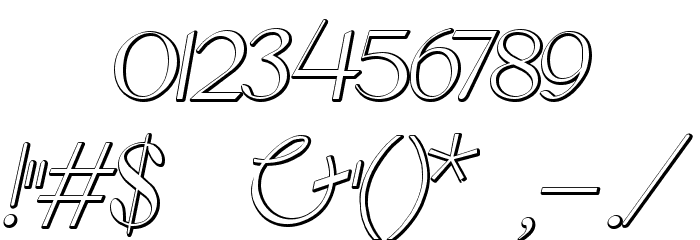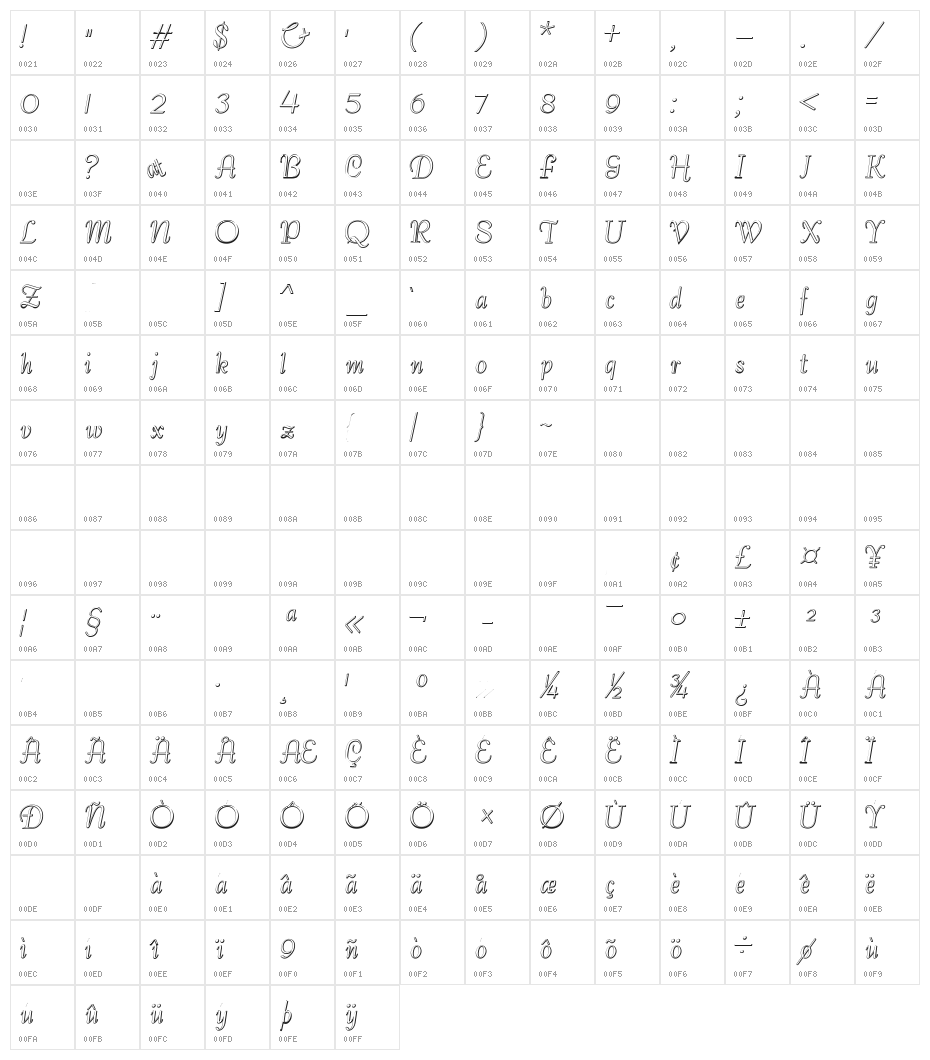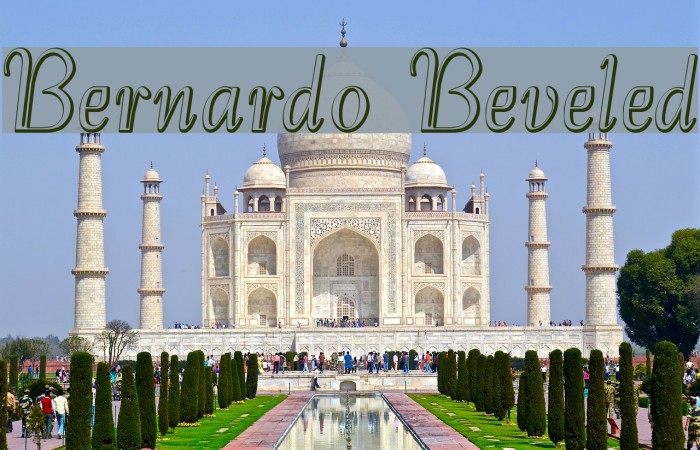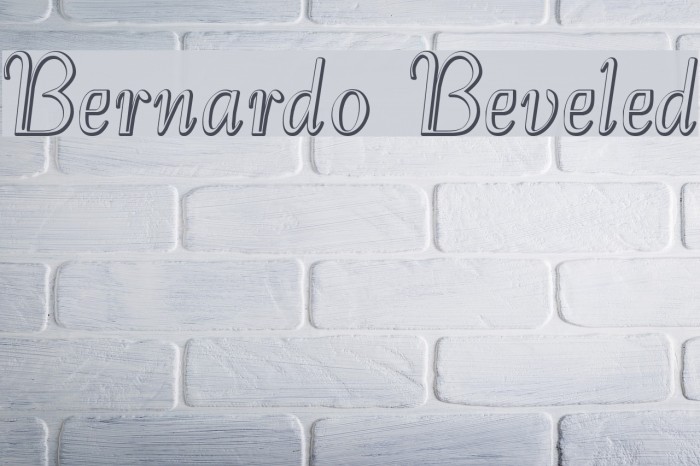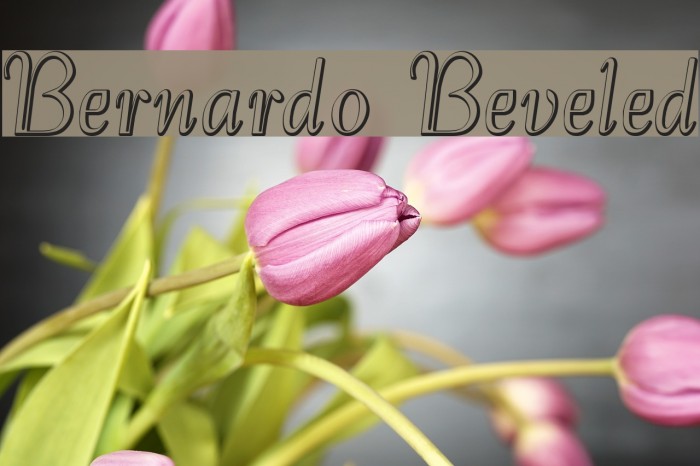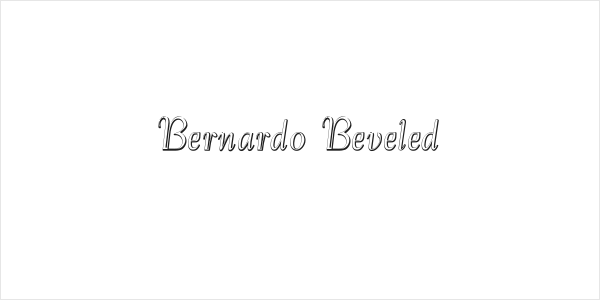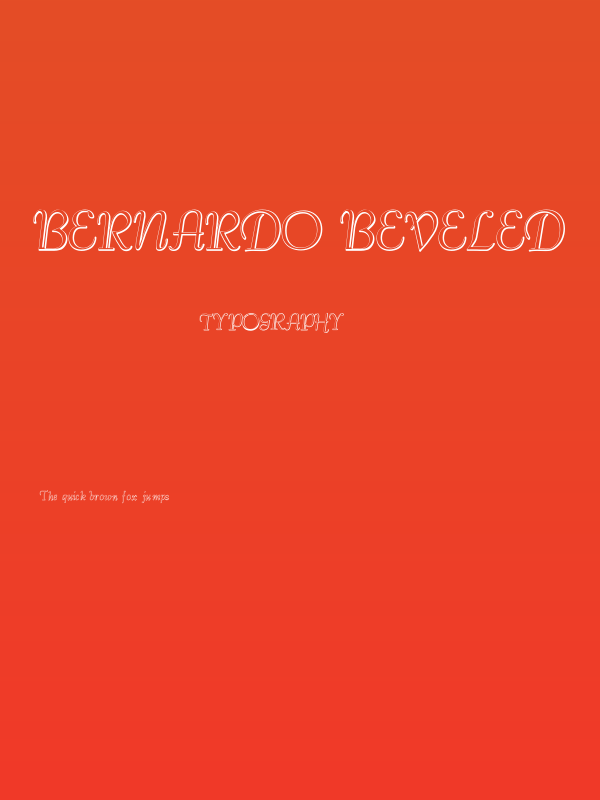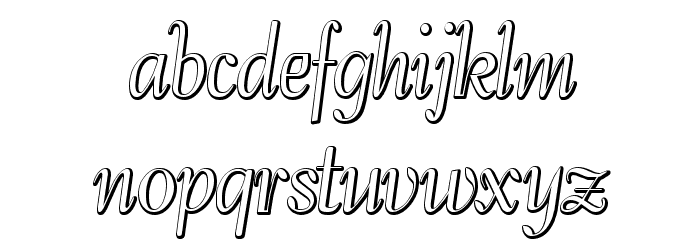
Bernardo Beveled Font
Bernardo Beveled Description
This font features a distinctive beveled style, giving it a three-dimensional appearance. The uppercase letters are bold and prominent, with a slight slant that adds a dynamic feel. The lowercase letters maintain the same beveled effect, providing consistency across text. The numerals are clear and easy to read, with the same beveled design that ties the entire font together. Special characters are also included, each with the same attention to detail and style. This font is both decorative and functional, making it suitable for a variety of design projects.
| Proposed Projects | Ideal for headlines, posters, logos, and any project requiring a standout, decorative font. |